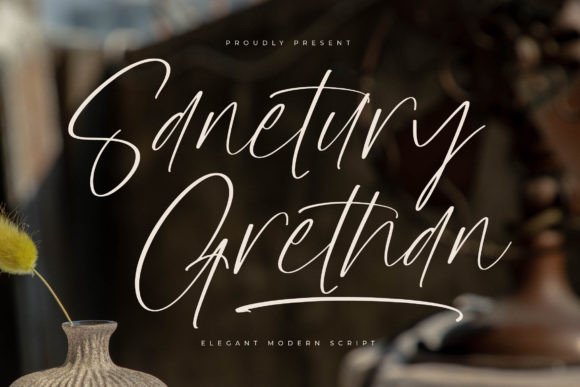
Introducing Sanetury Grethan Font: The Epitome of Elegance and Charm
Sanetury Grethan Font is a stunning handwritten font that embodies the essence of sophistication and refinement. Its fluid strokes, intricate details, and unique personality make it an ideal choice for a wide range of creative projects. In this article, we’ll delve into the world of Sanetury Grethan Font, exploring its features, applications, and the magic it brings to your designs.
Key Features of Sanetury Grethan Font
- Fluid Strokes: Sanetury Grethan Font boasts fluid, cursive strokes that give it a sense of movement and elegance.
- Intricate Details: The font’s intricate details, such as swashes and flourishes, add a touch of sophistication and refinement.
- Unique Personality: Sanetury Grethan Font has a distinct personality that sets it apart from other fonts, making it perfect for creative projects that require a dash of charm.
- Effortless Beauty: The font’s effortless beauty makes it easy to read and visually appealing, perfect for a wide range of applications.
Applications of Sanetury Grethan Font
Sanetury Grethan Font is a versatile font that can be used in a variety of creative projects, including:
- Invitations: Add a touch of elegance to your wedding invitations, birthday parties, or other special events with Sanetury Grethan Font.
- Branding: Use Sanetury Grethan Font to create a unique and memorable brand identity that exudes sophistication and refinement.
- Social Media Graphics: Elevate your social media graphics with Sanetury Grethan Font, making your content stand out in a crowded online space.
- Packaging: Add a touch of luxury to your product packaging with Sanetury Grethan Font, making your products more appealing to customers.
Typography Tips for Using Sanetury Grethan Font
To get the most out of Sanetury Grethan Font, here are some typography tips to keep in mind:
- Pair with Neutral Fonts: Pair Sanetury Grethan Font with neutral fonts, such as Arial or Helvetica, to create a striking contrast.
- Use Font Sizes Wisely: Use font sizes wisely to create visual hierarchy and emphasize important information.
- Experiment with Colors: Experiment with different colors to find the perfect match for your brand or design.
- Pay Attention to Spacing: Pay attention to spacing and kerning to ensure that your text is easy to read and visually appealing.
Font Pairing Ideas with Sanetury Grethan Font
Sanetury Grethan Font can be paired with a variety of fonts to create a unique and visually appealing design. Here are some font pairing ideas:
- Sanetury Grethan + Montserrat: Pair Sanetury Grethan Font with Montserrat for a modern and elegant look.
- Sanetury Grethan + Lato: Pair Sanetury Grethan Font with Lato for a clean and sophisticated design.
- Sanetury Grethan + Merriweather: Pair Sanetury Grethan Font with Merriweather for a classic and refined look.
Inspiration for Using Sanetury Grethan Font
Sanetury Grethan Font is a versatile font that can be used in a wide range of creative projects. Here are some inspiration ideas to get you started:
- Wedding Invitations: Create beautiful wedding invitations with Sanetury Grethan Font, adding a touch of elegance and sophistication.
- Branding and Packaging: Use Sanetury Grethan Font to create a unique and memorable brand identity that exudes luxury and refinement.
- Social Media Graphics: Elevate your social media graphics with Sanetury Grethan Font, making your content stand out in a crowded online space.
Technical Details of Sanetury Grethan Font
Here are some technical details about Sanetury Grethan Font:
- Font Type: Sanetury Grethan Font is a handwritten font.
- Font Style: Sanetury Grethan Font is available in regular and bold styles.
- Characters: Sanetury Grethan Font includes a wide range of characters, including uppercase and lowercase letters, numbers, and punctuation marks.